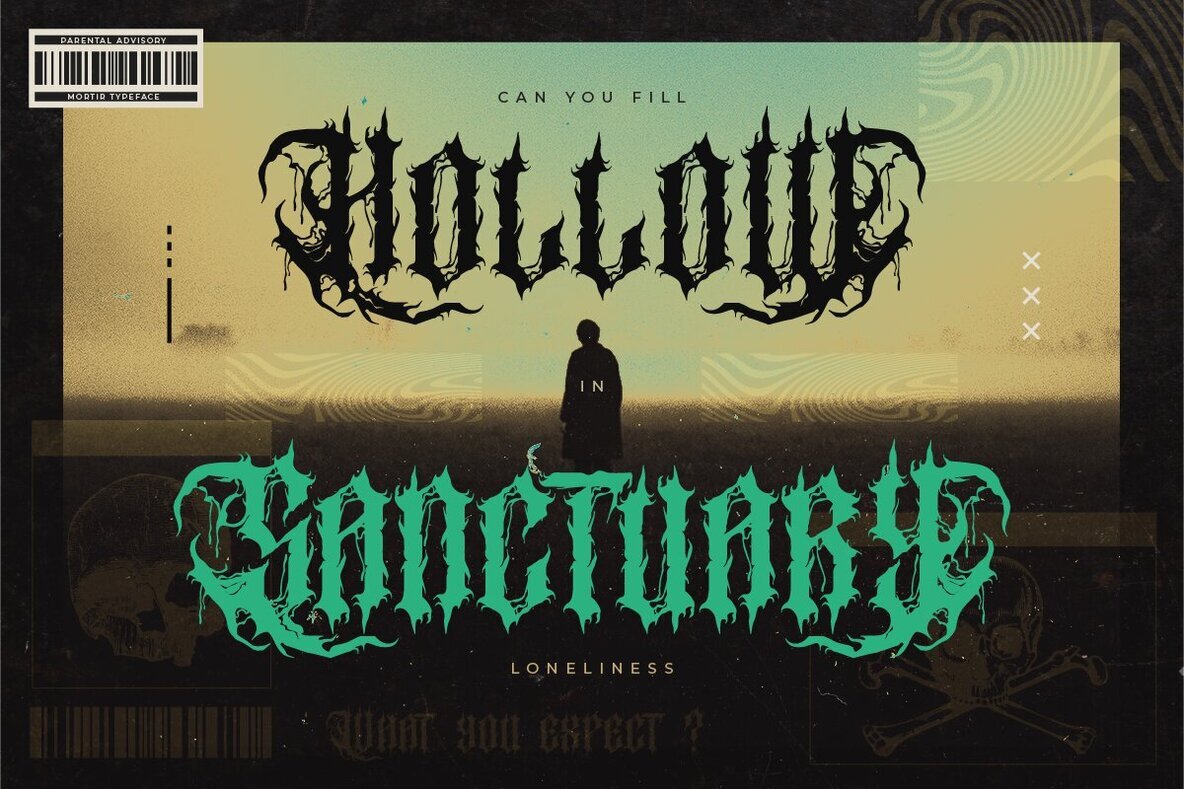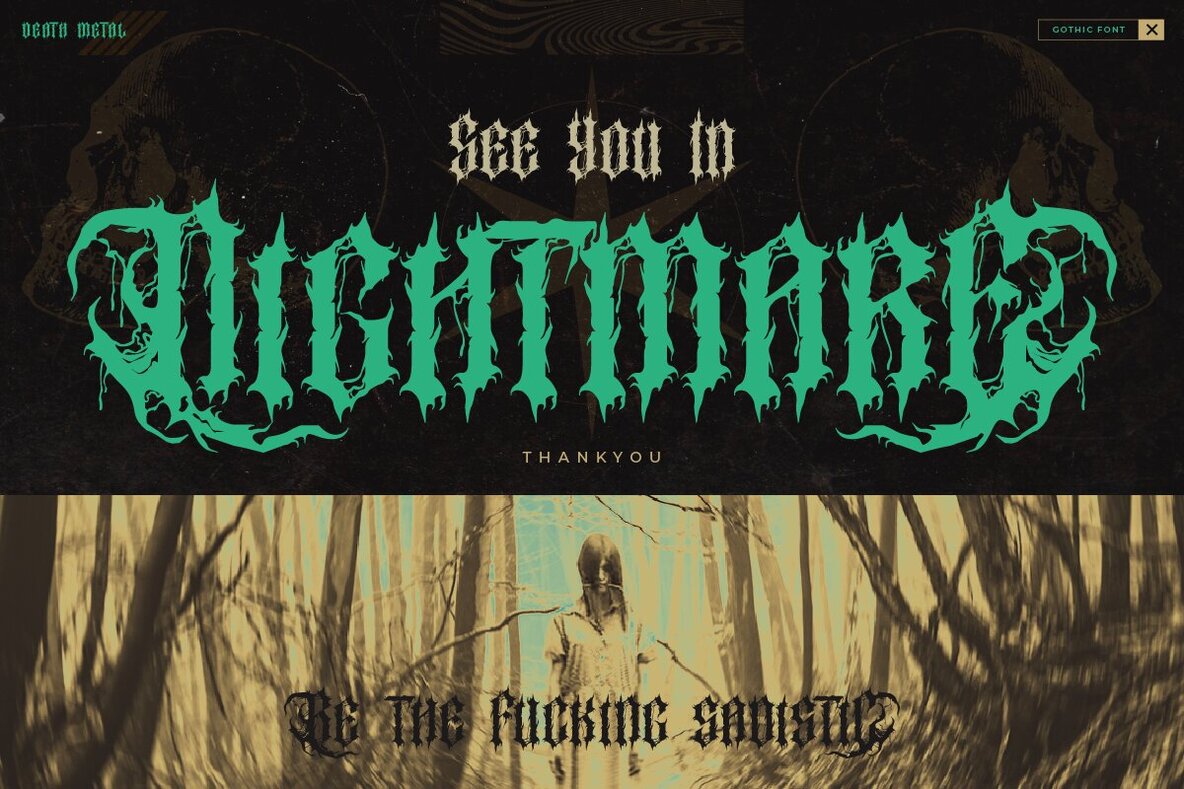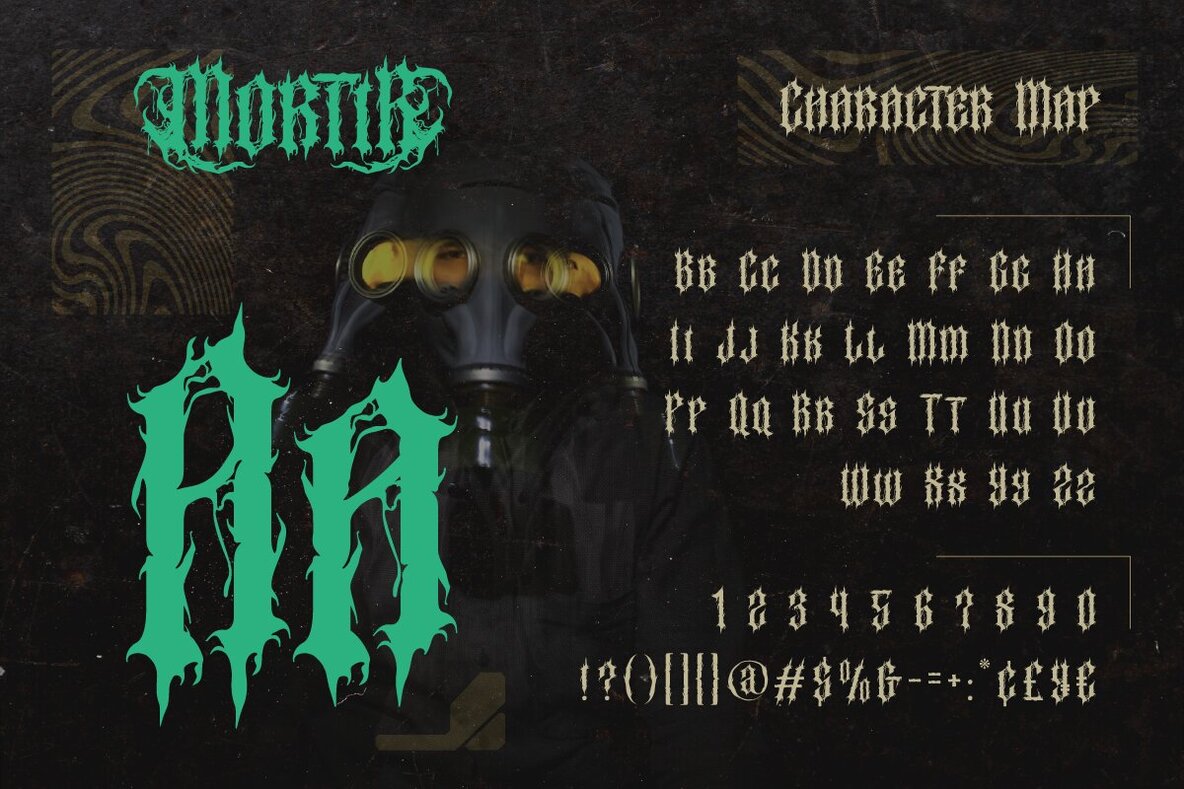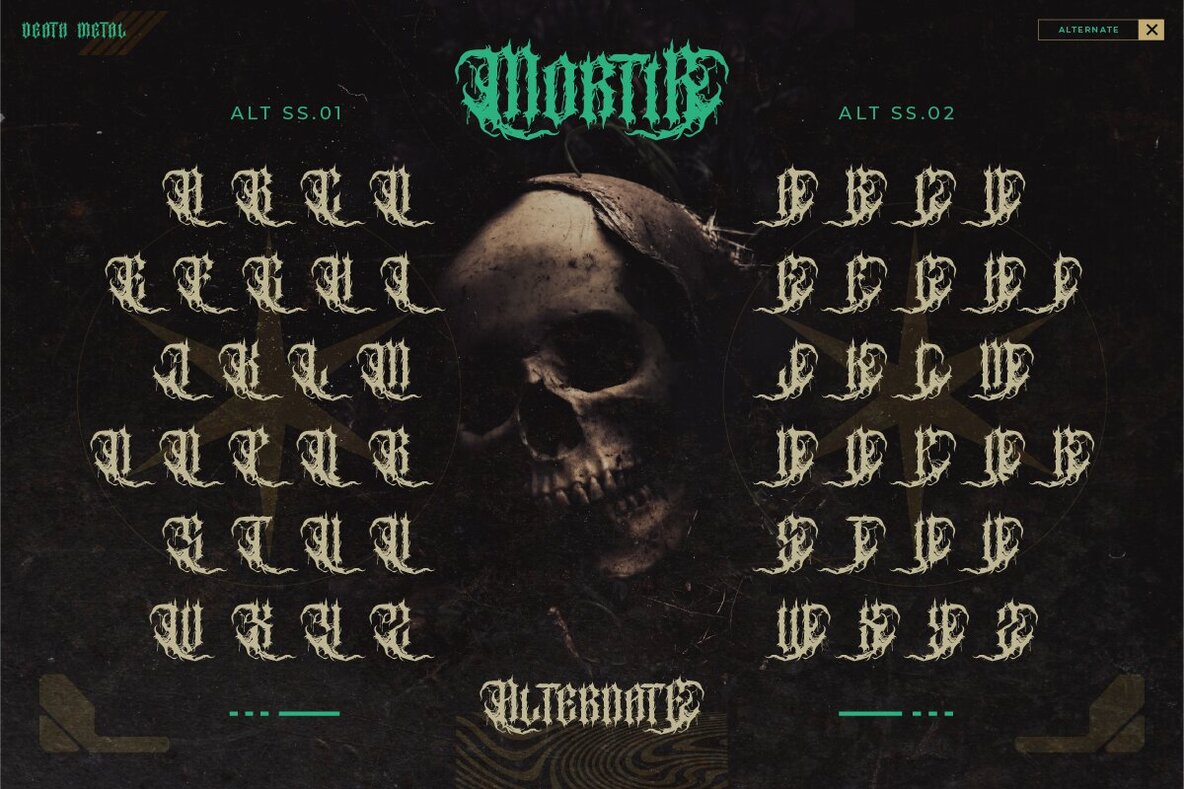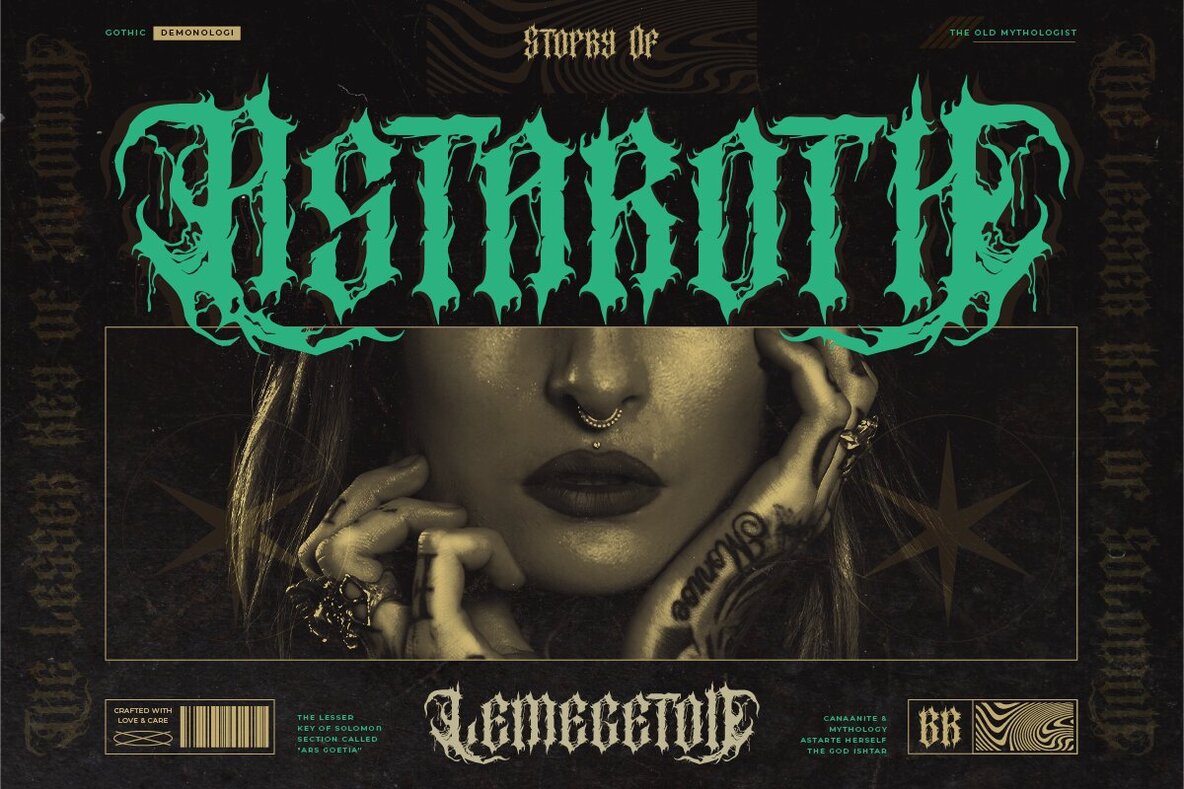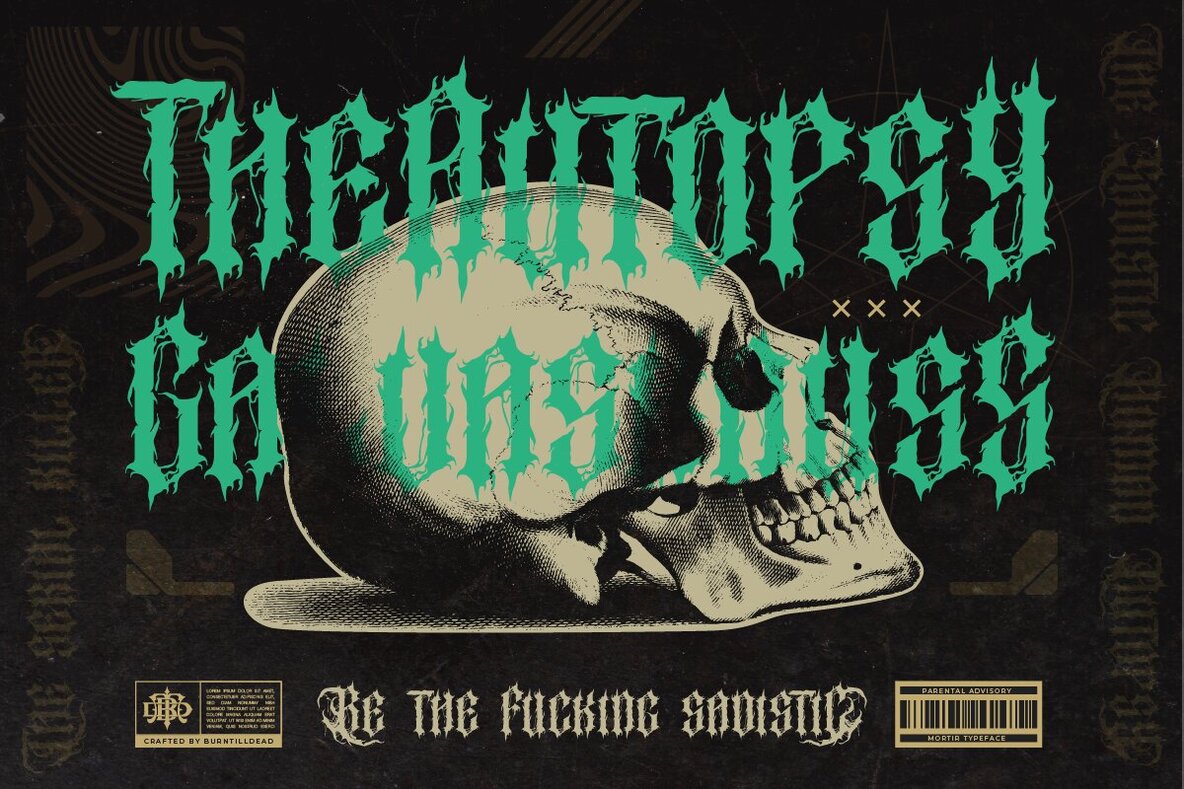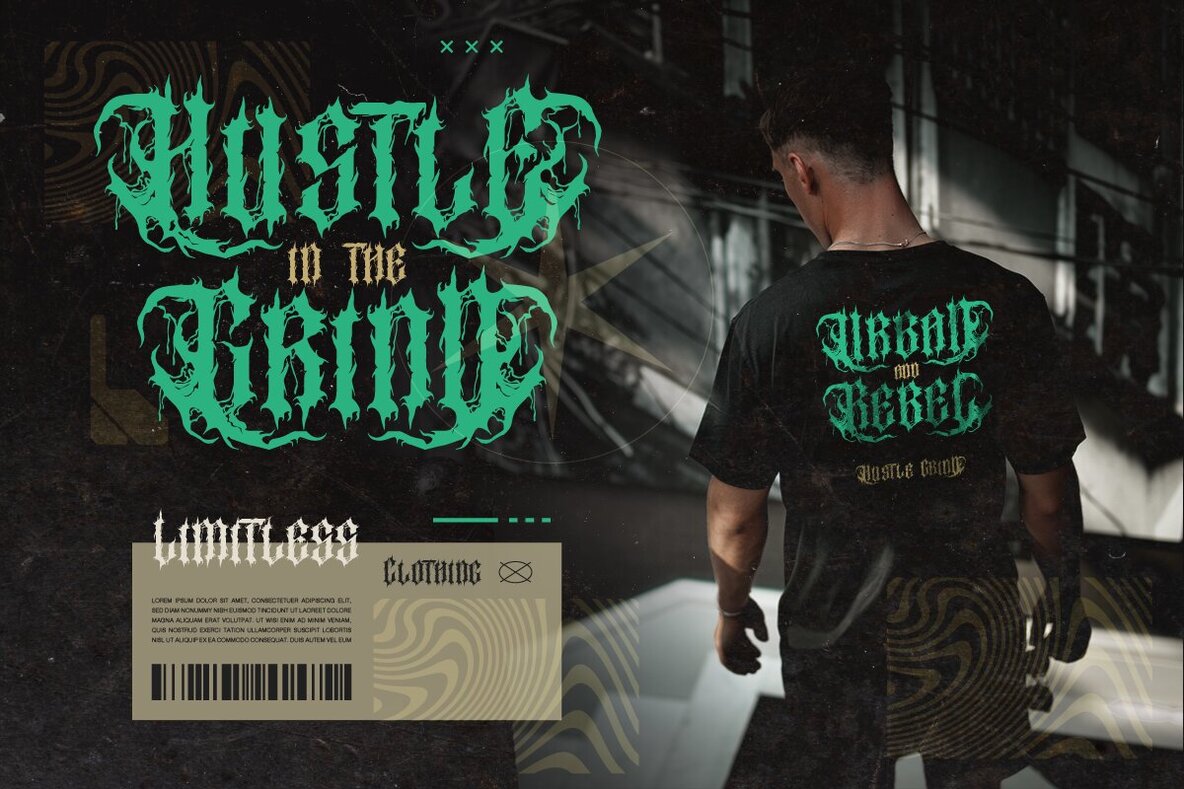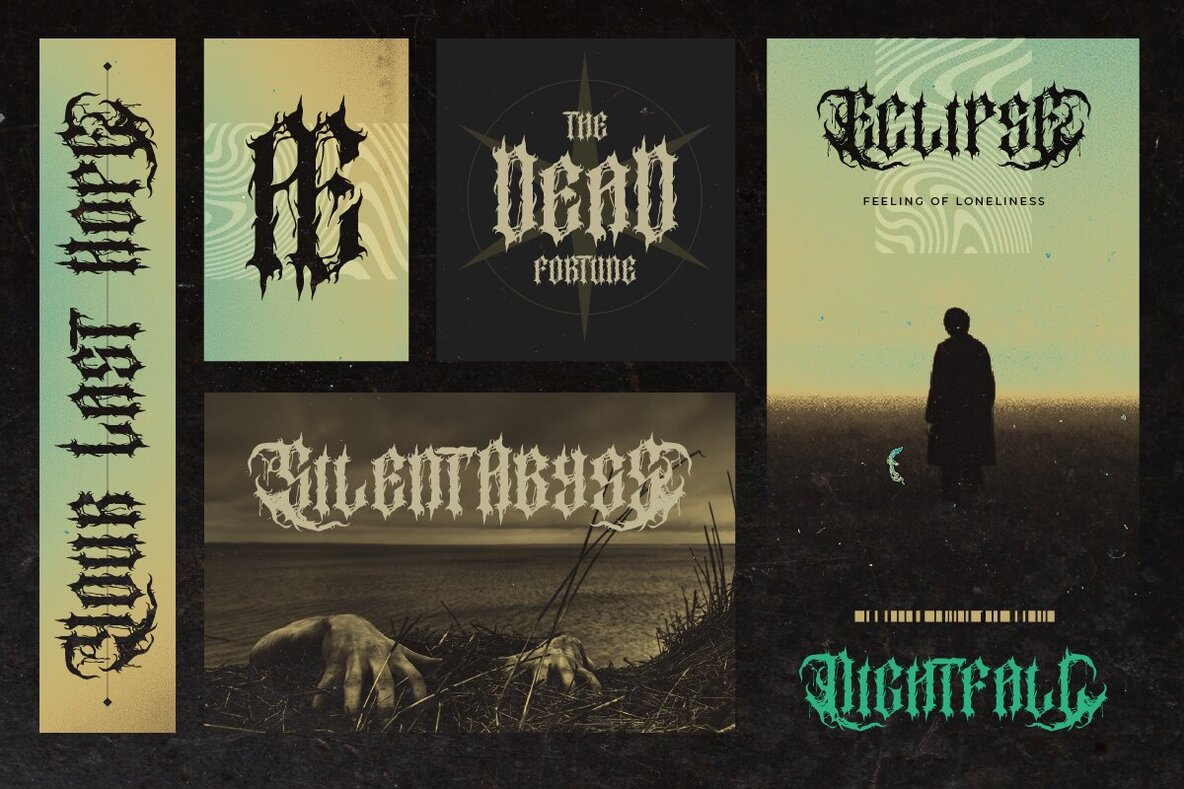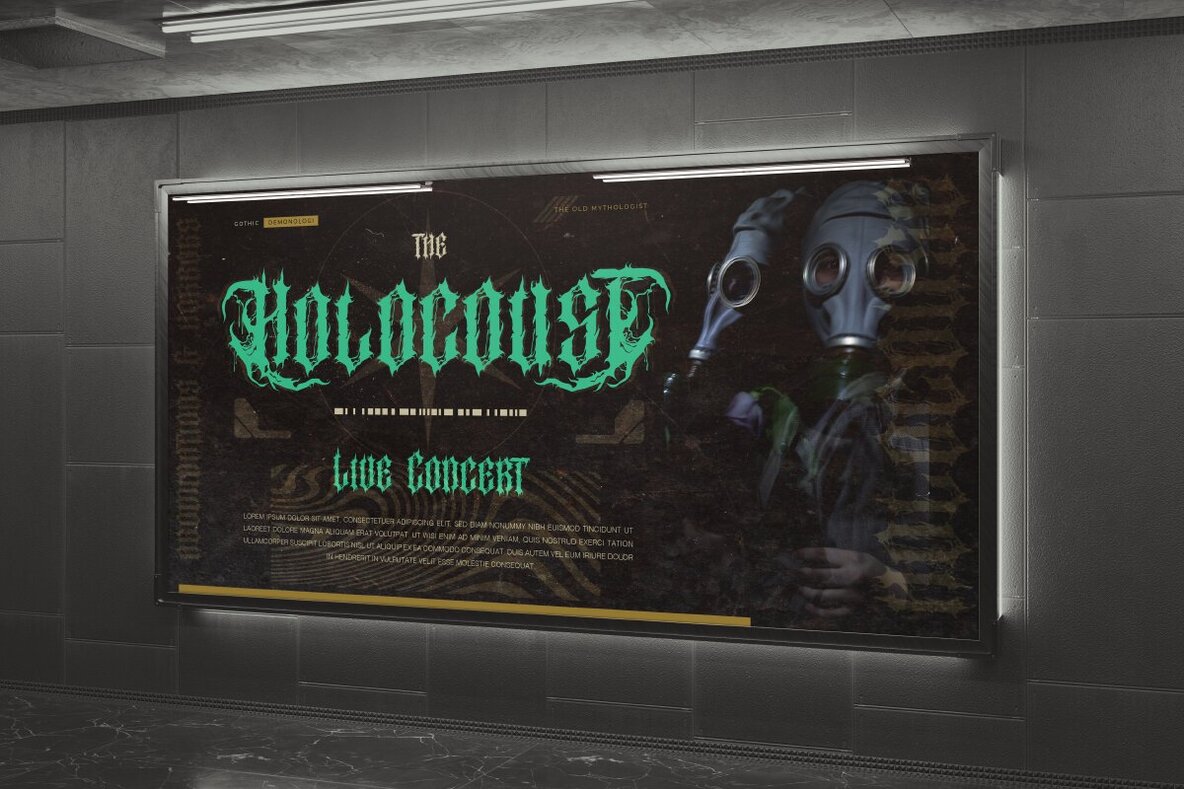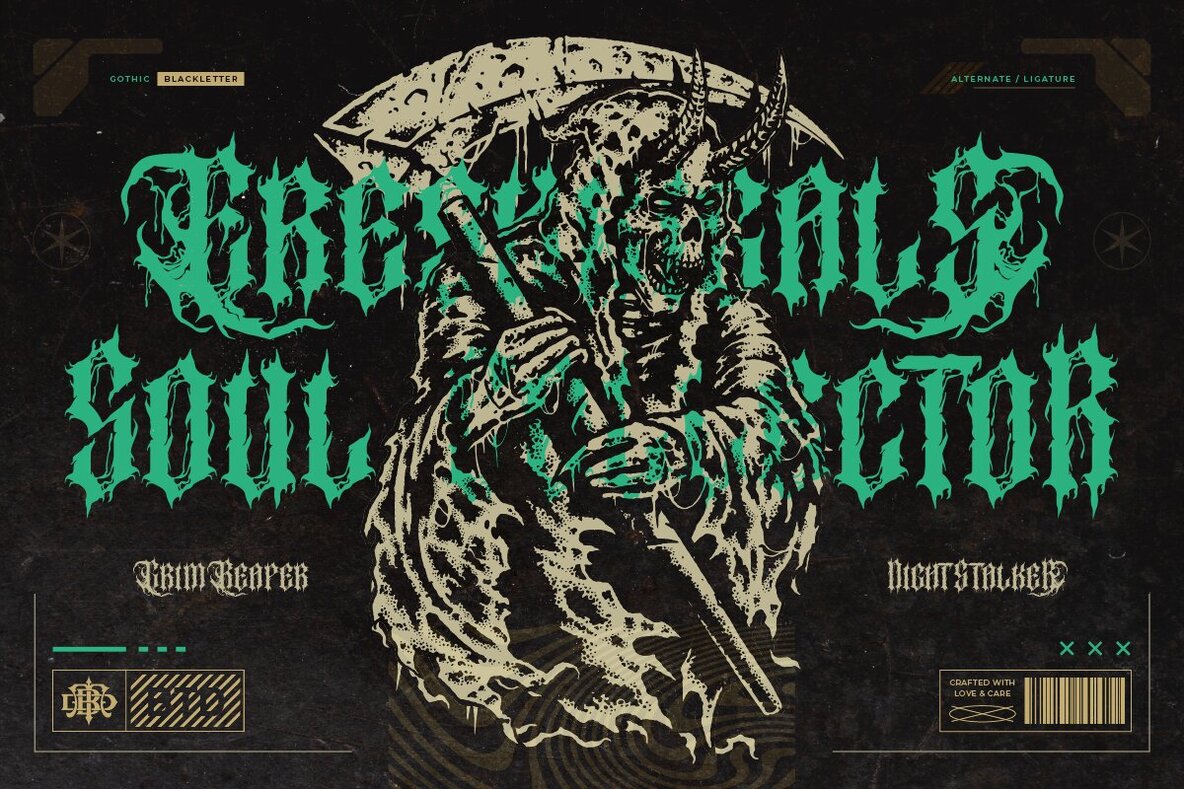
Mortir Font
Mortir Regular
Mortir is a bold, rugged font with sharp-edged designs that capture the intensity and power of the metal music genre. It features twisted shapes and aggression, embodying the spirit of metal in a visual form. Each letter exudes mystique and brutality, perfectly mirroring the atmospheric and ominous themes prevalent in black metal culture. This font is ideal for promotional materials for metal concerts, album artwork, concert posters, branding, and any design requiring a touch of death metal.Mortir: A Death Metal Font by Burntilldead